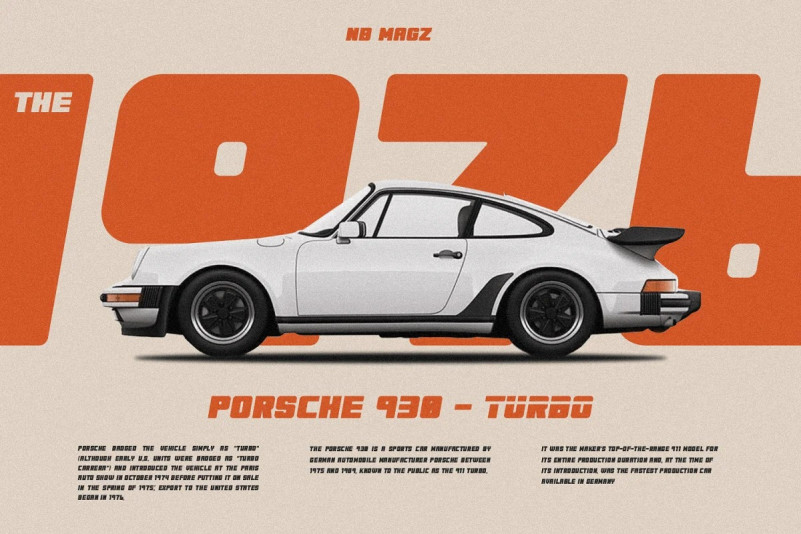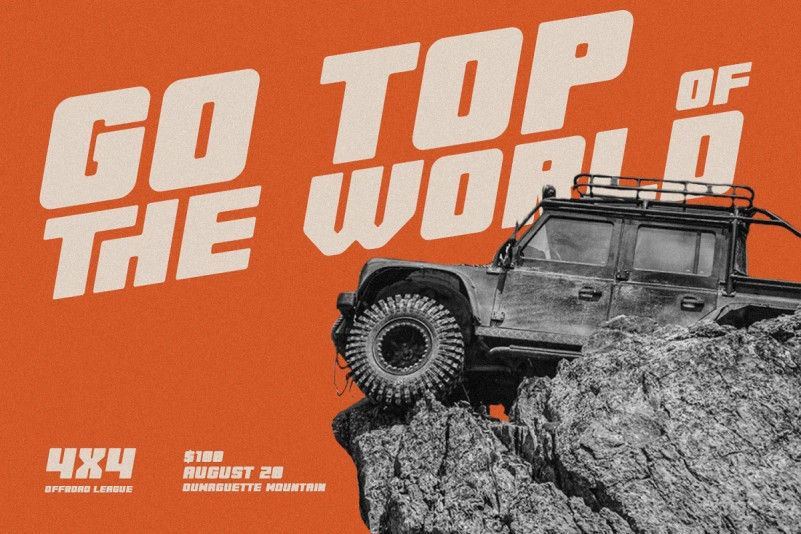
Sprinkle Magical Display Font
Sprinkle Magical is a superb duo-styled display font. This font is the ideal font for adding an adventurous and authentic feel to your next design idea!